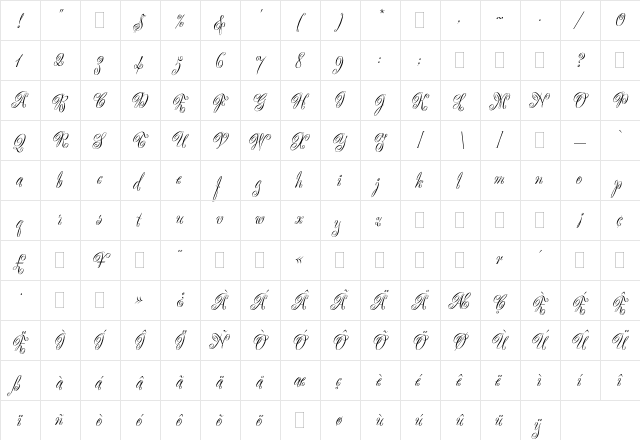
Scriptease Plain
Design Context for Scriptease Typeface
Scriptease flows with the natural rhythm of handwritten lettering, making it ideal for designs that call for warmth and personal expression.
Font Pairing: Combine Scriptease with a simple geometric sans for maximum contrast — the tension between flowing curves and clean structure is a classic typographic pairing.
Pro Tip: Pair Scriptease with a clean sans-serif for supporting text. The contrast between fluid script and geometric structure creates an elegant typographic hierarchy.